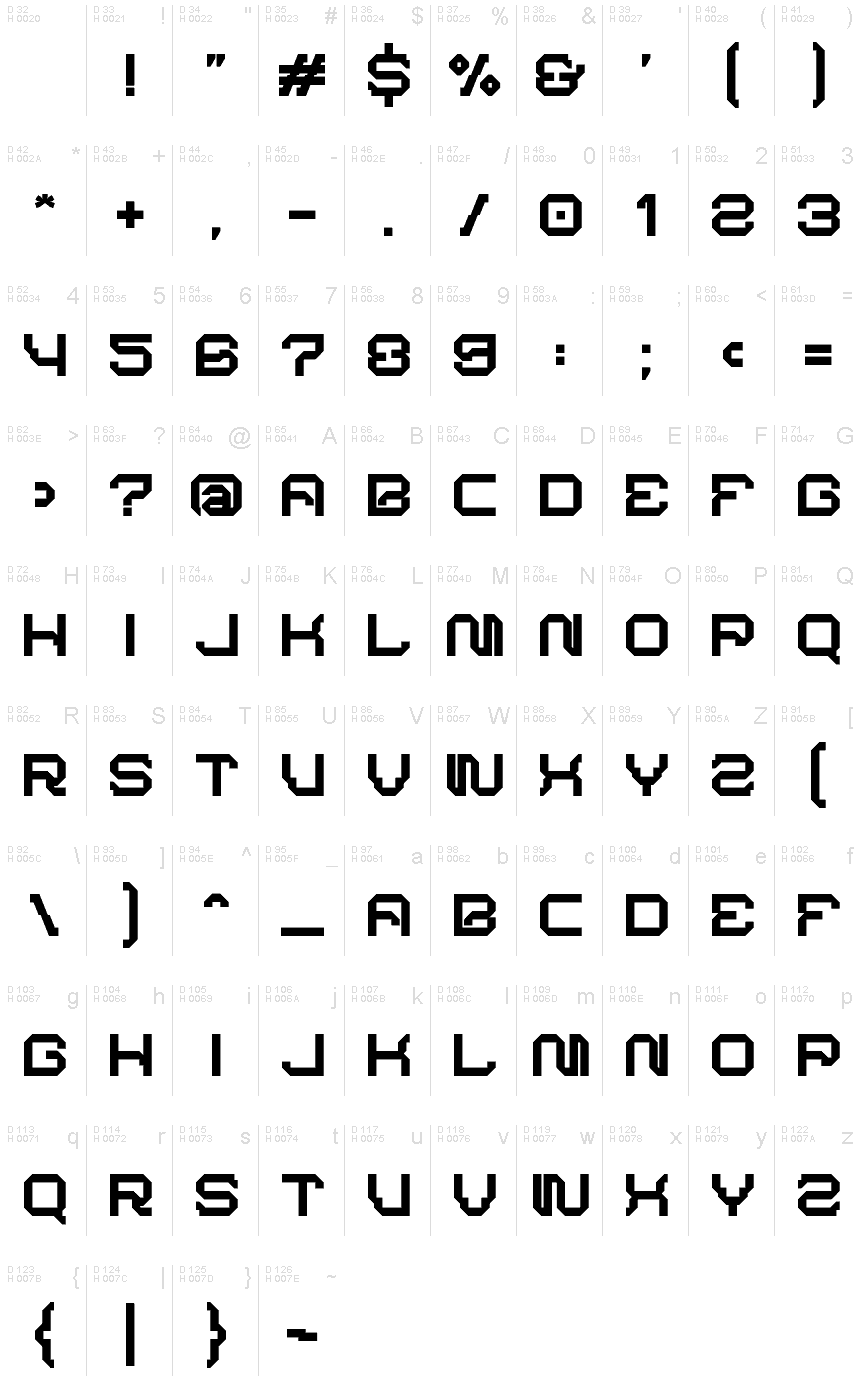
BARKMO-36
Barkmo 36 font by Enxyclo Studio is an expanded display font with a futuristic feel to it. The style combines futuristic elements and geometric shapes with a technical structured appearance which results in a truly unusual creative graphic. Each letter appears unique through sharp edges and corners, and the overall look is reminiscent of industrial designs.
This free typeface by Enxyclo Studio can be used for logos, headlines, posters, or body text in magazines, dailies, billboards or websites. Use it in labels and packaging designs for stationery products such as notebooks or pencils. This innovative industrial font will also perform well in course books covers and page titles among others.